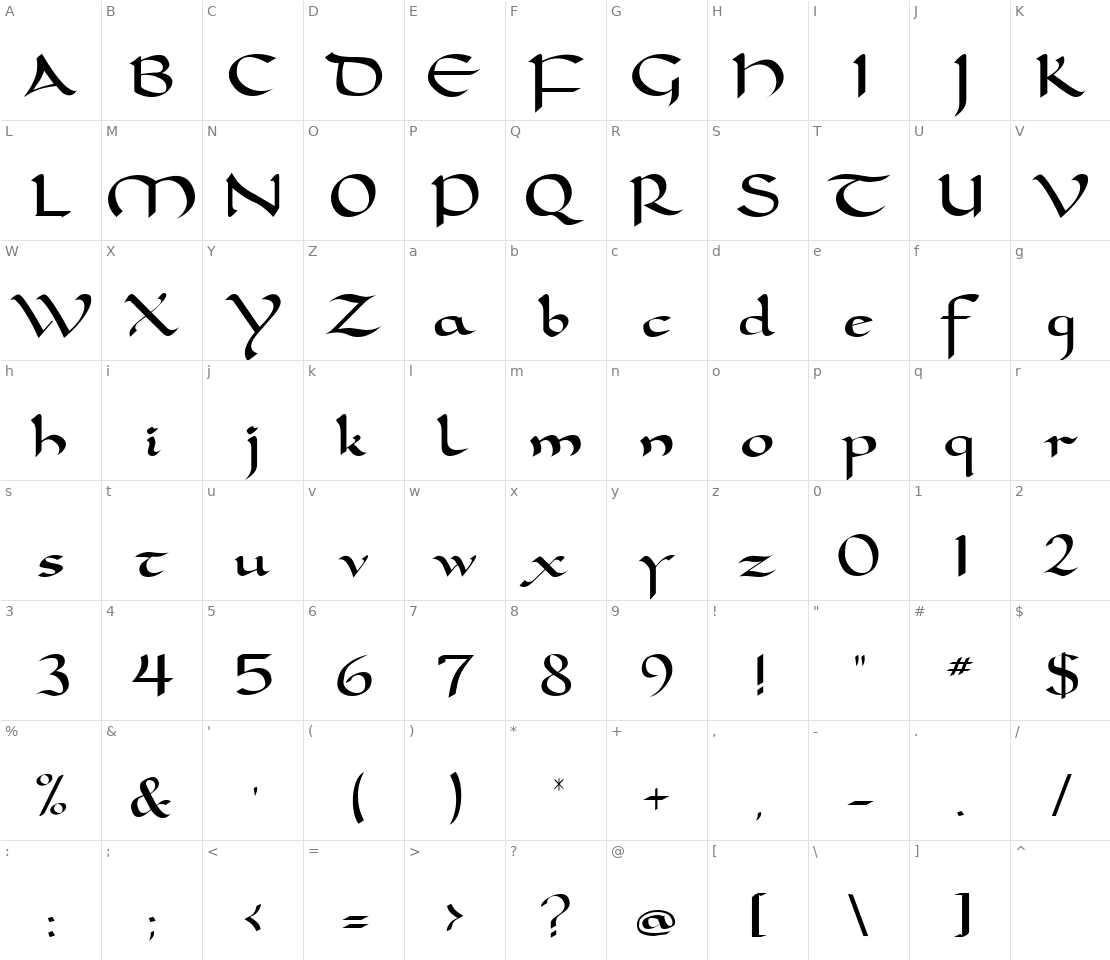
Carloinga
by William Boyd
Carloinga is a wide uncial face by William Boyd with broad, flowing letterforms rooted in the Carolingian manuscript tradition. The strokes carry a medieval elegance without feeling overly ornate, giving it a warmth and historical weight that works naturally for headlines, book covers, and Celtic or medieval-themed design. Its generous width lets each character breathe, making it surprisingly readable for a decorative script.